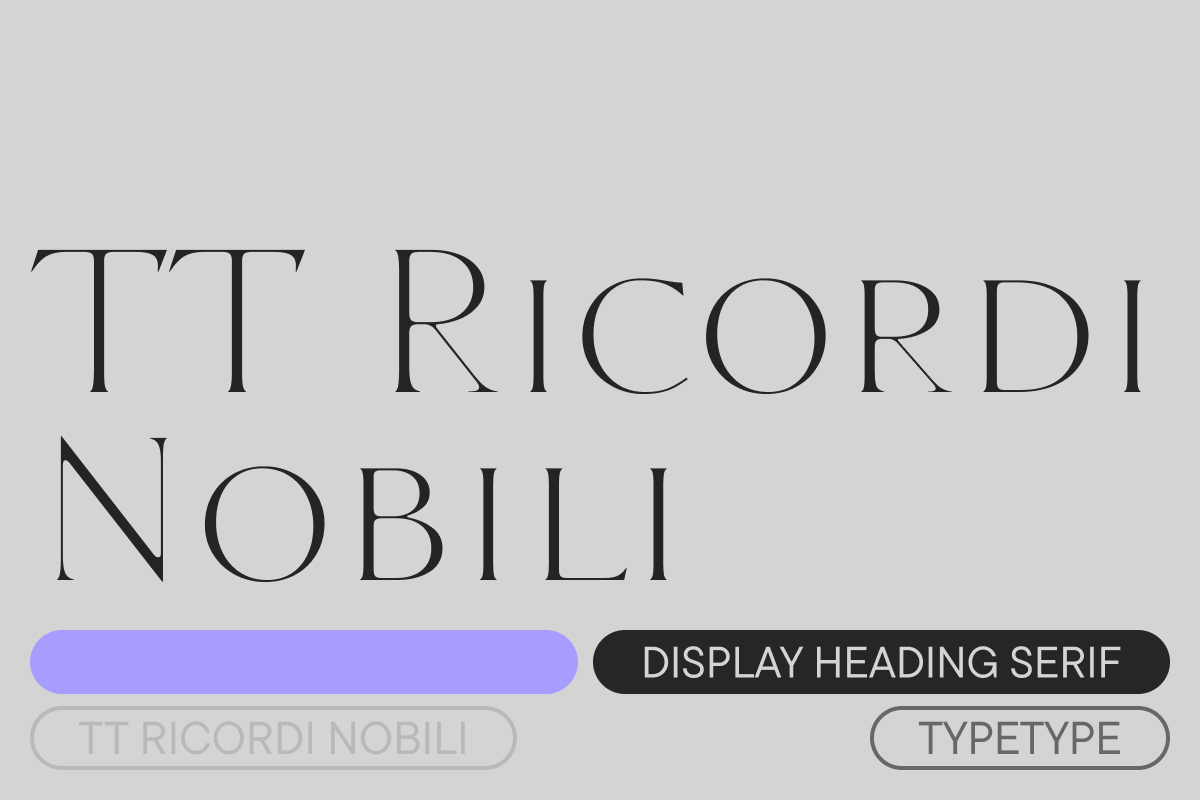
TT Ricordi Nobili Regular
TT Ricordi Nobili is a display serif with a rich Roman ancestry and contemporary world views. It stands out from the crowd with its subtlety and elegance. The font was inspired by an inscription carved into the stone floor of a cathedral in Florence. Because people walked over the inscription, some of the letters got thinner and worn out over time. It is this feeling of disappearing or flickering elements that we wanted to capture and implement in the project.